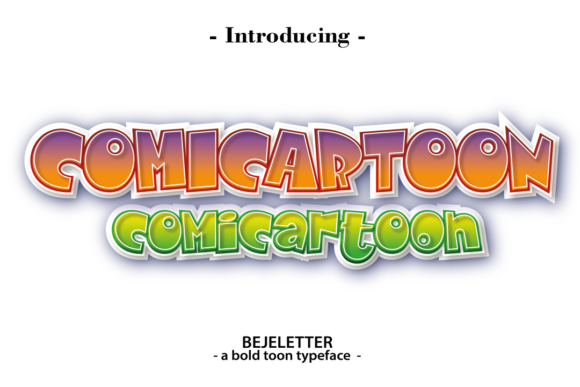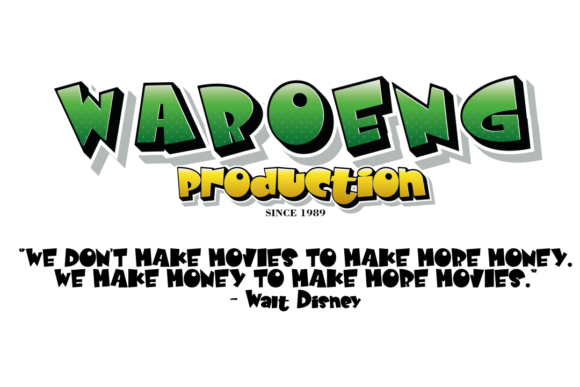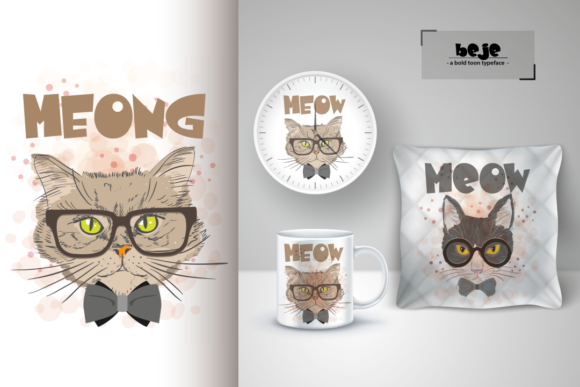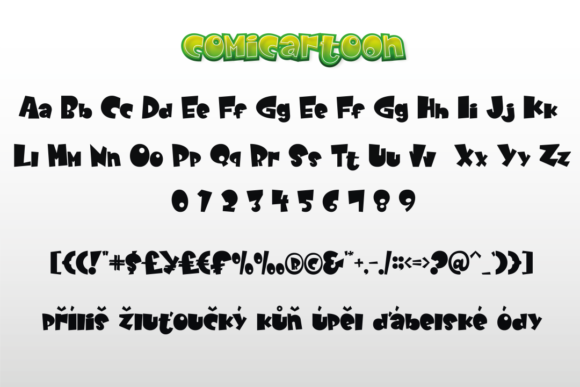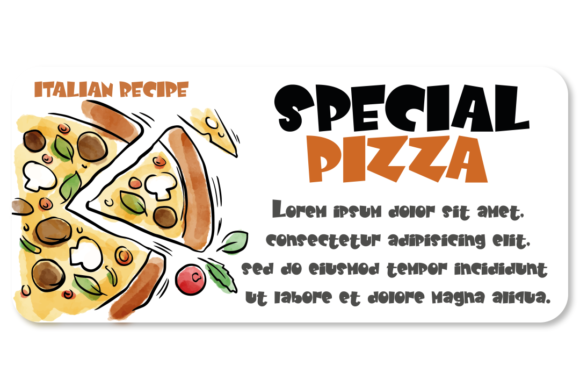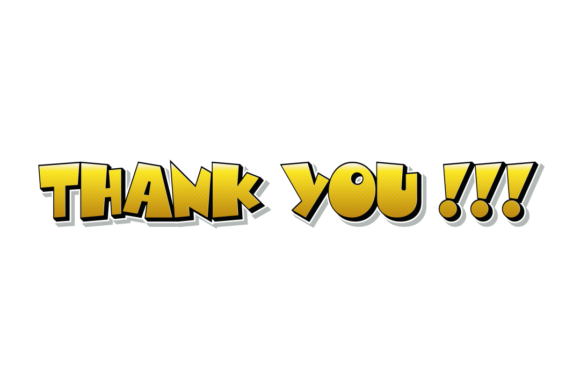
Unleash the Magic of Comicartoon Font
Have you ever sat down with a blank canvas, a pencil in hand, and a wave of creativity washes over you? Maybe it’s the sound of a cartoon theme song, or the nostalgic feel of a classic cartoon from your childhood. Whatever sparks it, we all know that moment when inspiration strikes and our imagination runs wild.
That’s exactly what the Comicartoon Font is designed to capture – the whimsical essence of cartoons from a bygone era. This playful display font is perfect for designers looking to add a touch of magic to their projects. Whether you’re working on a cartoon-related design, a children’s game, or just need a lovely font to elevate your creation, Comicartoon Font is a valuable addition to your toolkit.
Comicartoon Font Key Features
- Font Family: Comicartoon Font is a unique and playful font family designed for comic and cartoon-style applications.
- Character Set: Includes a wide range of characters, including Latin, Cyrillic, and Greek alphabets, as well as various symbols and emojis.
- Size and Resolution: Available in 5 font sizes, ranging from 12pt to 72pt, and supports resolutions up to 300 DPI for high-quality printing.
- Unique Characteristics: Features a distinctive comic book-inspired design with bold lines, rounded edges, and exaggerated letterforms, perfect for creating a playful and eye-catching visual style.
Comicartoon Font Review
When I first saw the Comicartoon Font, I thought it was a fun and quirky addition to any design project. ✨ The font’s playful and cartoon-like aesthetic is sure to grab attention and bring a smile to the user’s face. The designer has done a great job of capturing the essence of classic comic book fonts, making it perfect for projects that need a touch of nostalgia.
One of the things that works well with Comicartoon Font is its versatility. ✨ It can be used for a variety of projects, from children’s books to advertising and even video games. The font is highly customizable, allowing designers to adjust the weight, width, and style to fit their specific needs.
- Playful and cartoon-like aesthetic
- Versatility for various design projects
- May not be suitable for formal or professional projects
- Can be difficult to read in small font sizes
- Some characters may not be fully supported
In conclusion, Comicartoon Font is a great addition to any designer’s toolkit. While it may have some limitations, its unique aesthetic and versatility make it a valuable resource for designers looking to add a touch of whimsy to their projects. Overall, I would give it 4 out of 5 stars.
Comicartoon Font is ideal for creating comic book-style text, such as speech bubbles, thought clouds, and captions.
Use it to add a playful touch to your designs, or to create a nostalgic feel reminiscent of classic comic books.